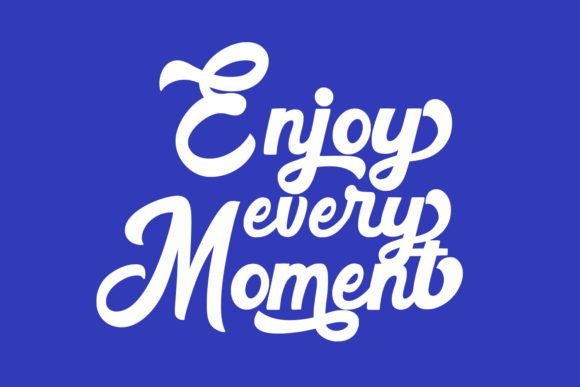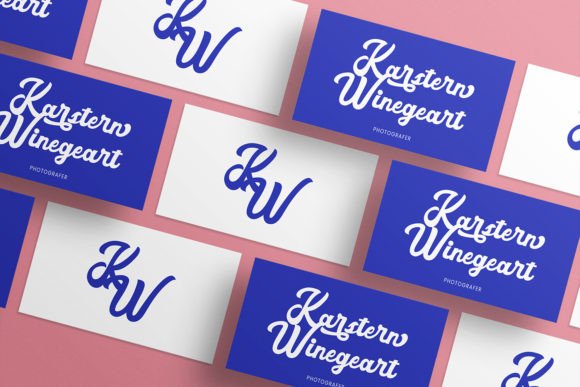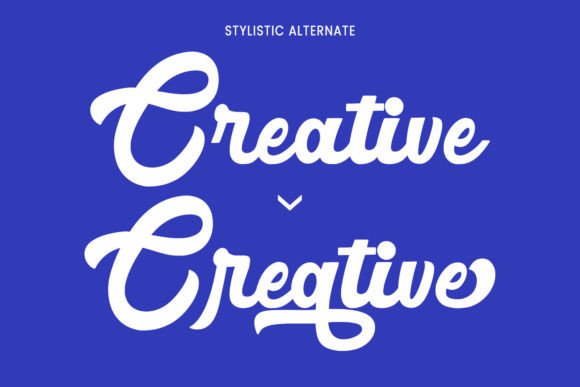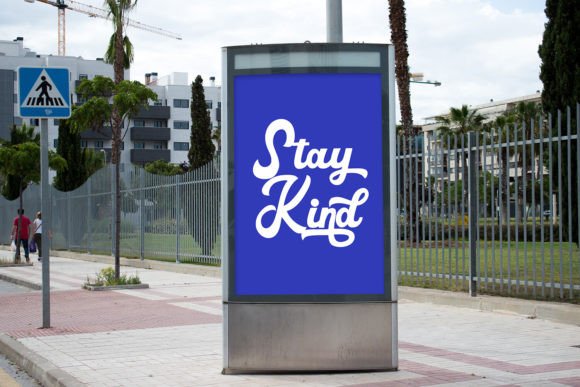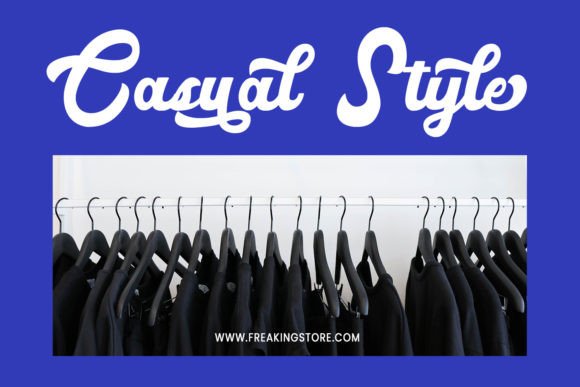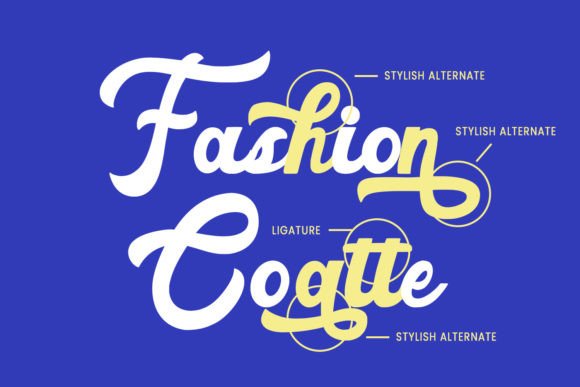
The Perfect Script: Unleashing the Charm of Freaking Font
There’s a moment in every designer’s journey when the perfect font can make all the difference. The words flow effortlessly onto the page, and the message becomes a masterpiece. For those who crave that special something, Freaking Font is the answer. This captivating Script Display Font is a symphony of elegance and artistry, with each glyph crafted to perfection.
As a designer, you know the value of a well-chosen font. It’s not just about aesthetics; it’s about conveying the essence of your message. Freaking Font is more than just a font – it’s a tool to elevate your designs and leave a lasting impression. Whether you’re working on a poster, logo, or brochure, Freaking Font’s unique charm will set your project apart.
Freaking Font Key Features
- Unique Characteristics: Freaking Font boasts a distinctive, hand-drawn aesthetic with irregular strokes and subtle imperfections, giving it a unique and eye-catching feel.
- Customizability: The font family includes a range of OpenType features, such as ligatures, swashes, and ornaments, allowing designers to add a personal touch to their work.
Freaking Font Review
Overall, I have mixed feelings about Freaking Font. On the one hand, I appreciate its unique, quirky vibe that sets it apart from other fonts.
- The font’s irregularities and imperfections give it a certain charm and character.
- It’s great for titles and headings, adding a touch of whimsy and personality to any design.
- The font is highly customizable, allowing designers to tweak its appearance to suit their needs.
- The font can be overwhelming in large blocks of text, making it difficult to read.
- Its irregularities can also make it challenging to use in situations where readability is crucial.
- The font may not be suitable for corporate or formal designs, as it may come across as unprofessional.
Overall, I think Freaking Font is a great choice for designers who want to add a touch of personality and whimsy to their designs. However, it’s not a one-size-fits-all solution and may require careful consideration and customization to get the most out of it.
Getting the Most Out of Freaking Font
Use Freaking Font to add a touch of whimsy and personality to your designs.
Experiment with different font sizes, colors, and styles to create a unique look.
Combine Freaking Font with other design elements to create a visually appealing and engaging design.
Freaking Font is perfect for:
Marketing materials, such as flyers and brochures.
Branding and logo design.
Social media graphics and advertisements.